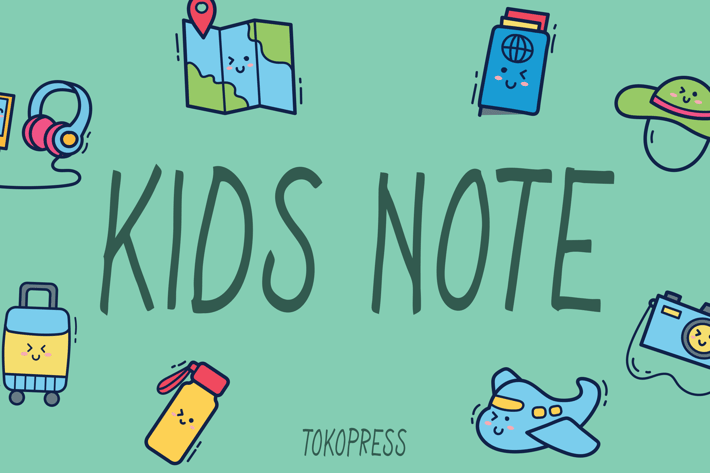
Kids Note - Handwriting font
Kids Note - Handwriting Font
Kids Note is a handwritten children’s display font designed with a playful spirit and organic strokes. It features bouncy baselines, soft rounded edges, and a naturally uneven rhythm that mimics real children's handwriting—ideal for creators who want to express joy, imagination, and youthfulness. With its friendly, imperfect style and warm emotional tone, Kids Note feels right at home in educational spaces, storybooks, and youth-oriented branding.
Its expressive and informal character makes it approachable and engaging, perfect for brands and creatives aiming for a relatable, child-centric look that supports emotional connection and visual storytelling.
Whether you're creating learning materials, a playful mobile app, or a kids' birthday invitation, Kids Note gives your work a vibrant personality. Its casual style works beautifully in elementary education resources, character-driven storybooks, classroom posters, and toy packaging. This is the kind of font that smiles back—it turns plain text into something lively, trustworthy, and emotionally warm for both kids and parents.
Realistic, handwritten feel with bouncy movement and soft forms
Ideal for children’s books, posters, educational apps, flashcards, and play-themed branding
Emotionally engaging and visually welcoming for early learning materials
Brings playful vibes to packaging, signage, or story-driven visuals
• Basic Latin A–Z and a–z
Let your designs play! Kids Note gives your creative work a cheerful voice that invites curiosity and imagination. Whether you're a designer, teacher, or children’s author, this font helps you connect with your audience through warmth, joy, and a playful tone. Bring stories to life—one bouncy letter at a time.